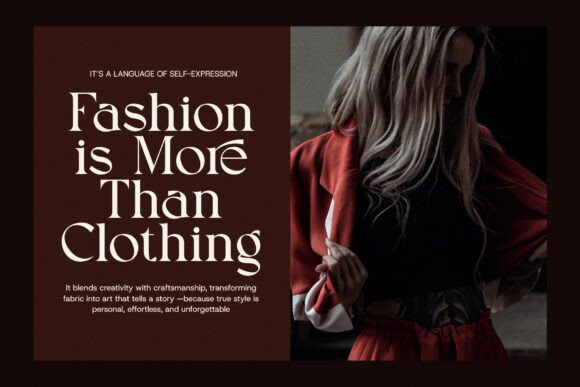
Beach Nature Font
**Beach Nature Display Serif** is a beautifully crafted serif font that captures the essence of nature’s elegance with a modern twist. Inspired by the serenity of coastal landscapes and the organic flow of nature, this typeface blends soft curves with structured details, creating a perfect balance between sophistication and approachability.Designed for versatility, Beach Nature Display Serif enhances branding, logos, websites, and editorial layouts with its distinctive character. Whether you’re crafting an upscale boutique identity, an elegant food packaging design, or a stylish magazine layout, this font delivers a refined yet inviting aesthetic. Its carefully shaped letterforms exude a sense of calm and harmony, making it ideal for businesses that want to convey authenticity and natural beauty.Perfect for luxury and lifestyle brands, Beach Nature Display Serif shines in both digital and print applications. Its high-contrast strokes and smooth transitions ensure readability while maintaining a unique artistic appeal. From fashion campaigns to organic product labels, this font adds a touch of timeless elegance with a contemporary edge.If you’re looking for a display serif that reflects both sophistication and natural charm, Beach Nature Display Serif is the ideal choice. Elevate your designs with this stunning typeface and create a lasting impression with every word.